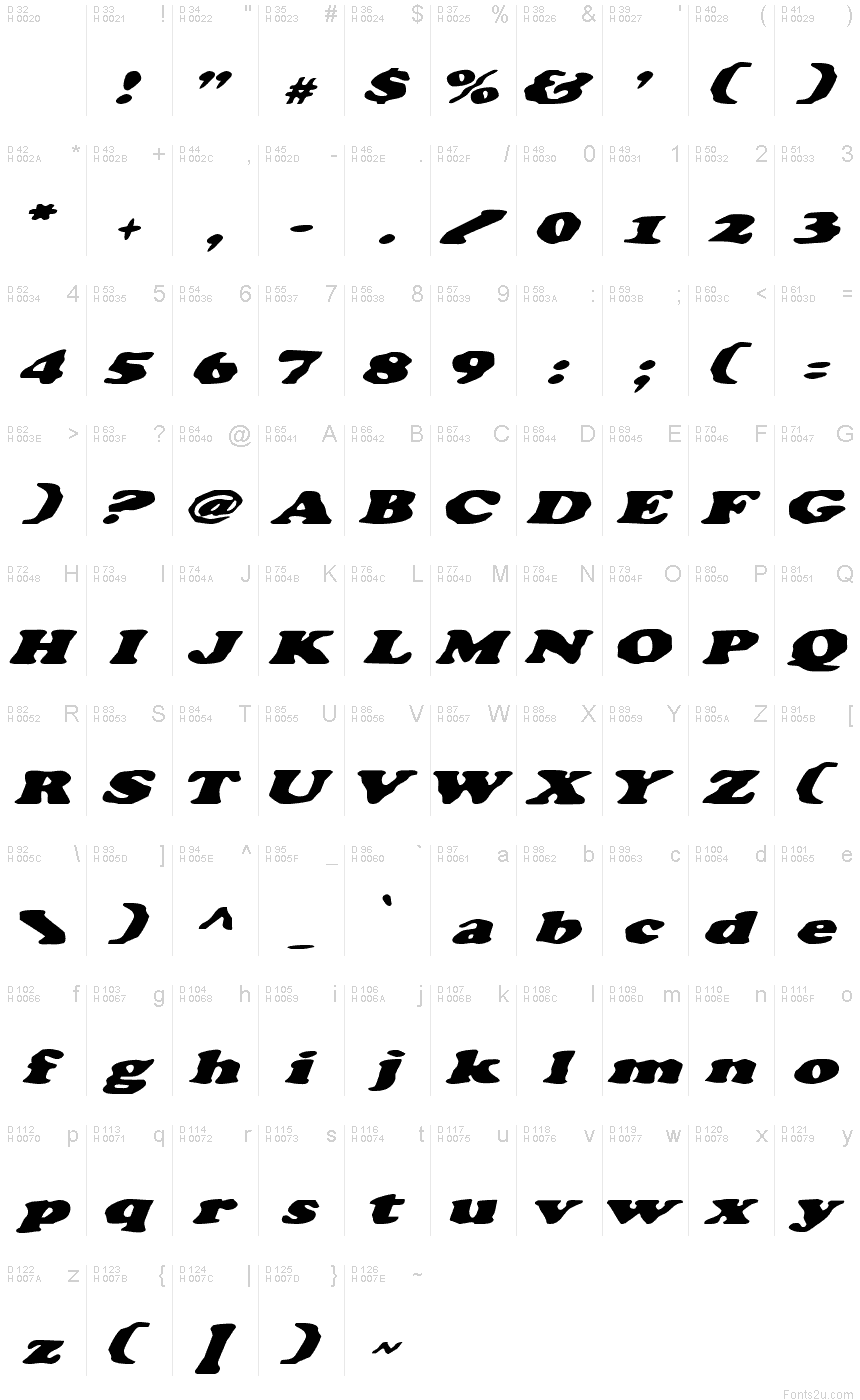
Charlemagne Italic
Charlemagne Italic font by Iconian Fonts is a free eroded display typeface. Thick, inky strokes lean hard into the italic slant, as if the letters were swiped across the page with a worn brush. The edges are soft and bruised rather than neatly cut, giving every word a scuffed, underground energy that feels loud even in black and white.
This free font shines on gig posters, extreme sports branding, horror titles, game logos, streetwear labels, and bold social graphics that need to shout from a distance. Using Charlemagne Italic at large sizes lets its chunky curves and rough texture really hit; pair it with a clean geometric sans in small text to keep layouts readable and punchy.